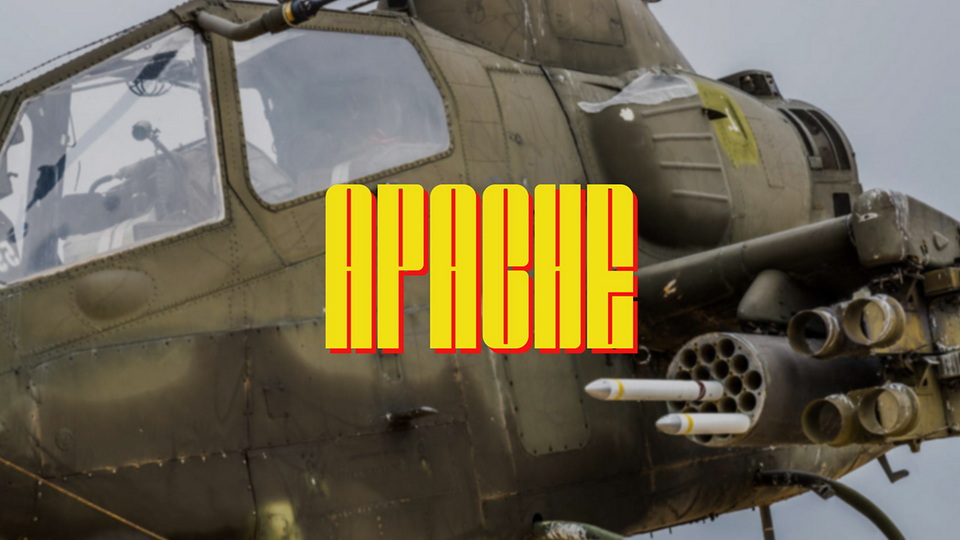
Download Apache font, a high contrast narrow display typeface, an intervention on the Chappa font. Apache font is perfect to create the feel of high impact, recommended to use in big headlines, magazine covers, movie titles.
Designer: Norbert Gebur